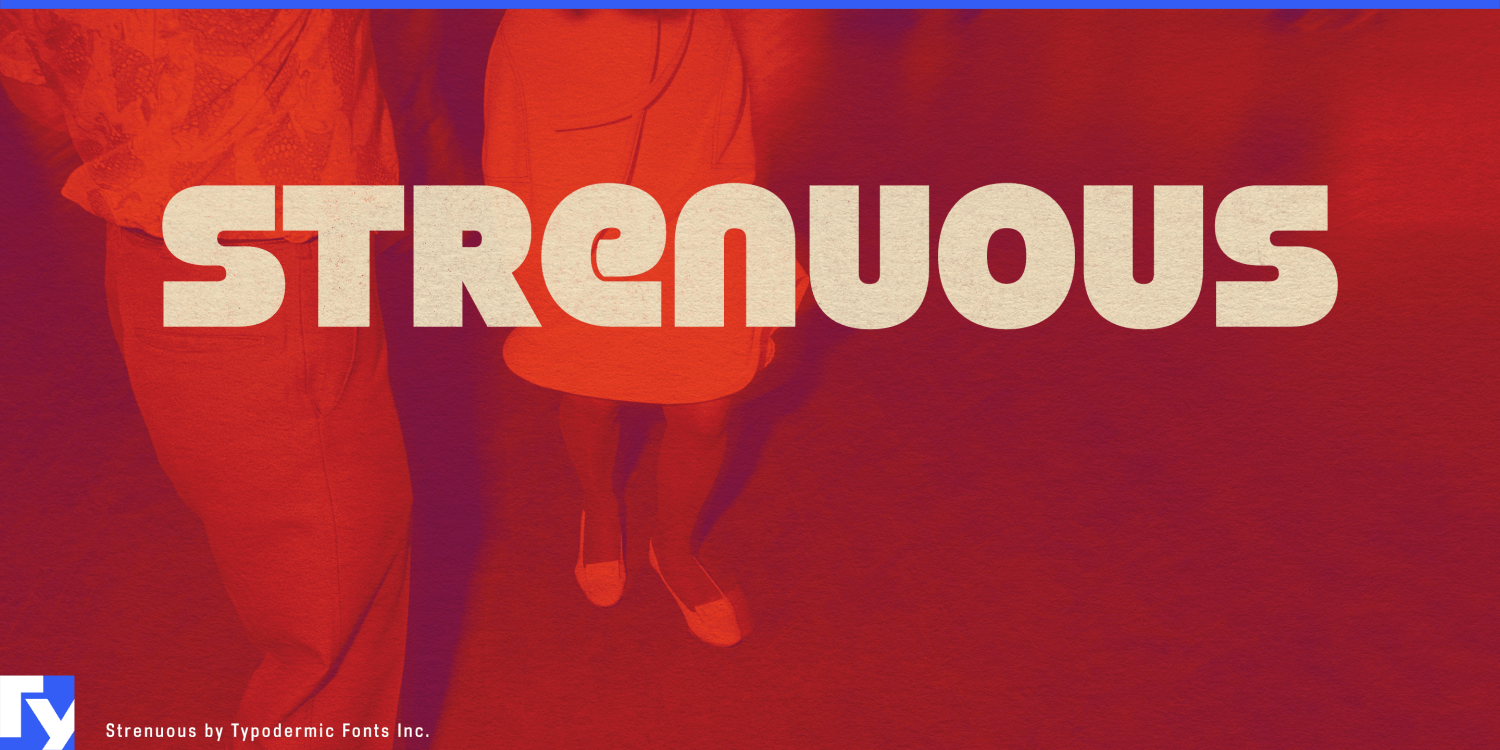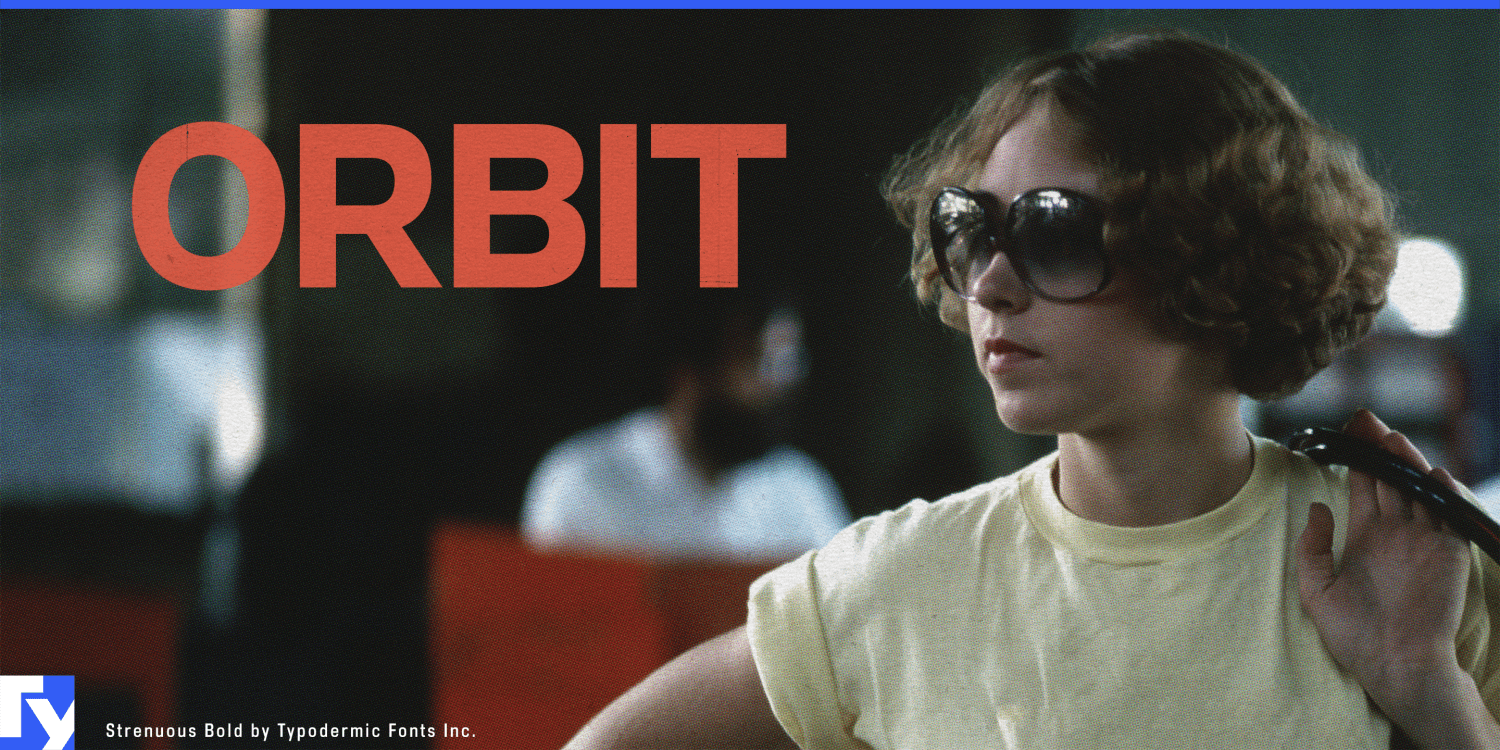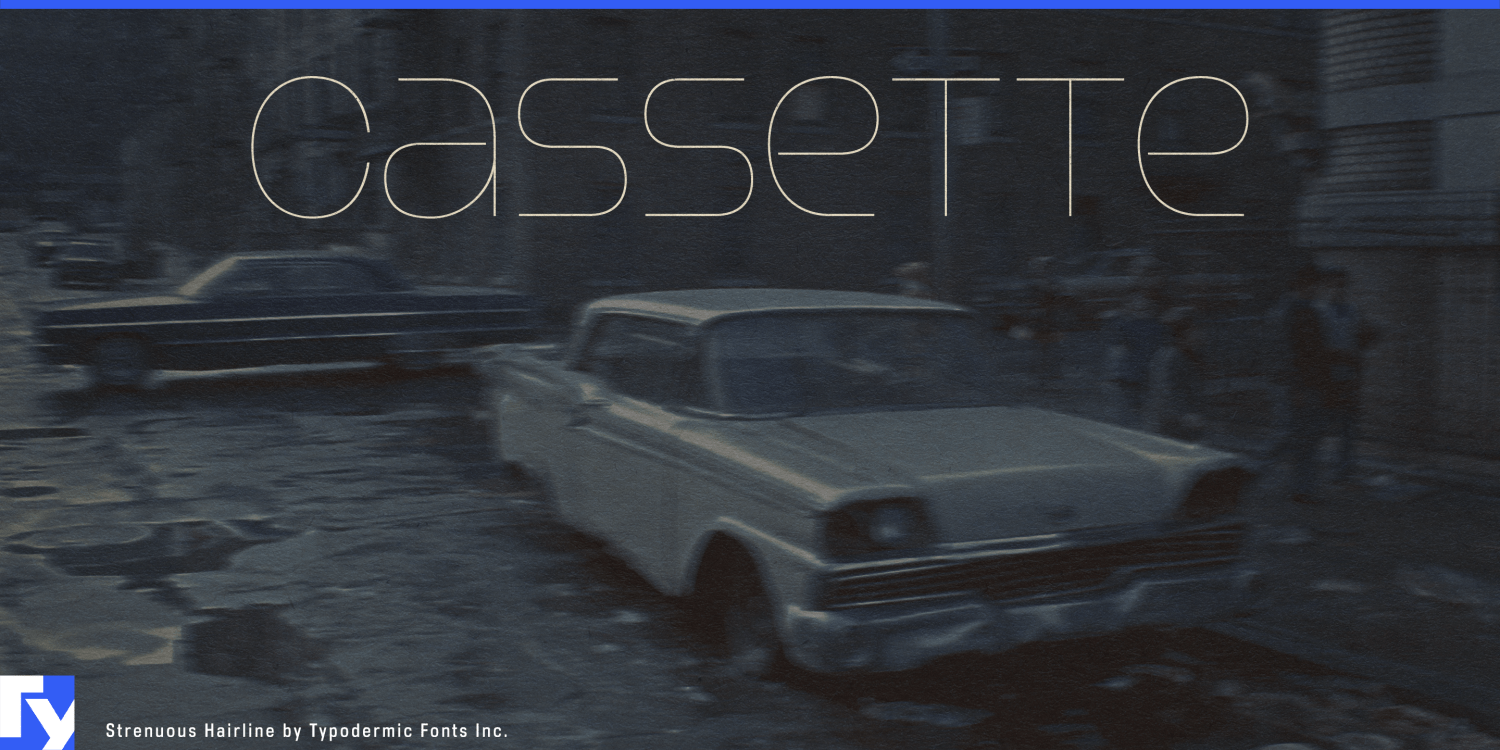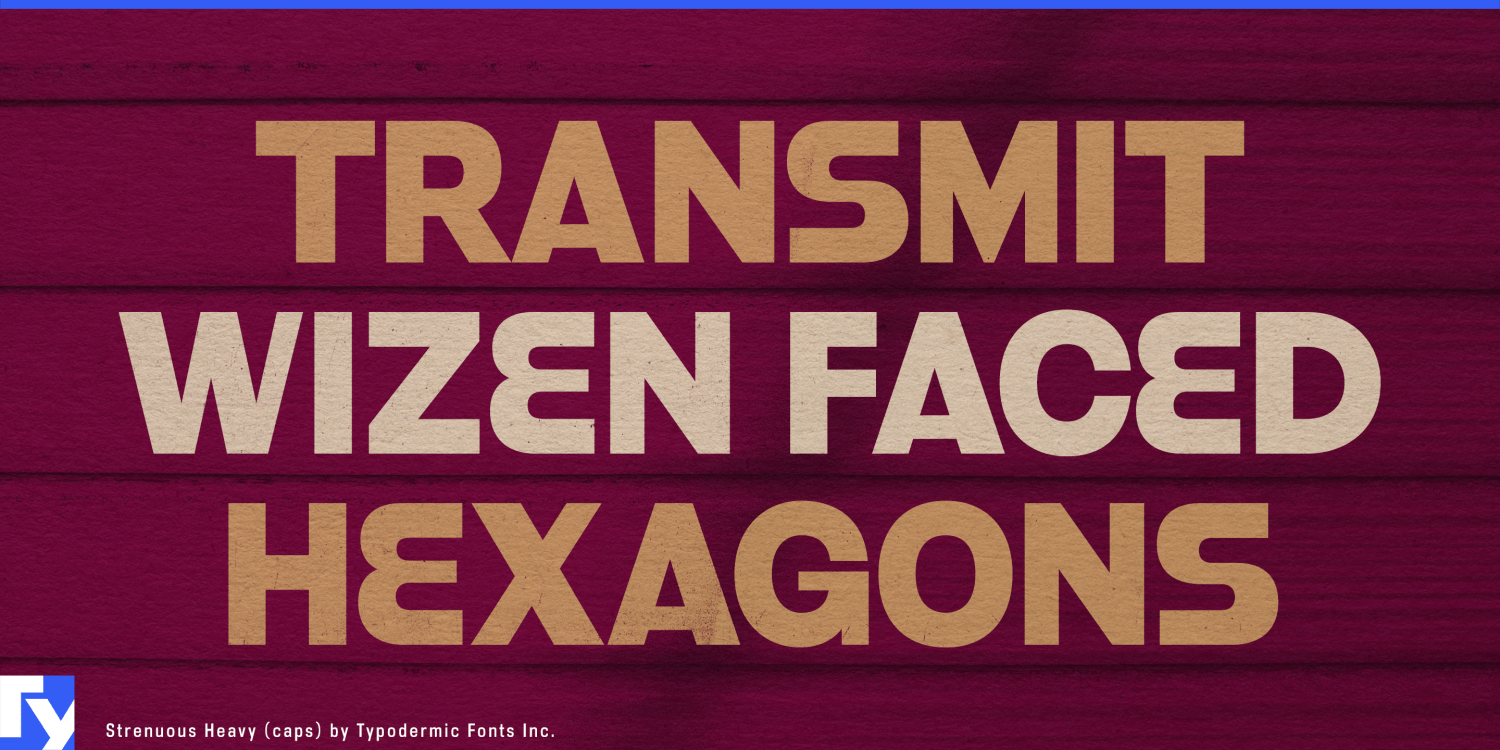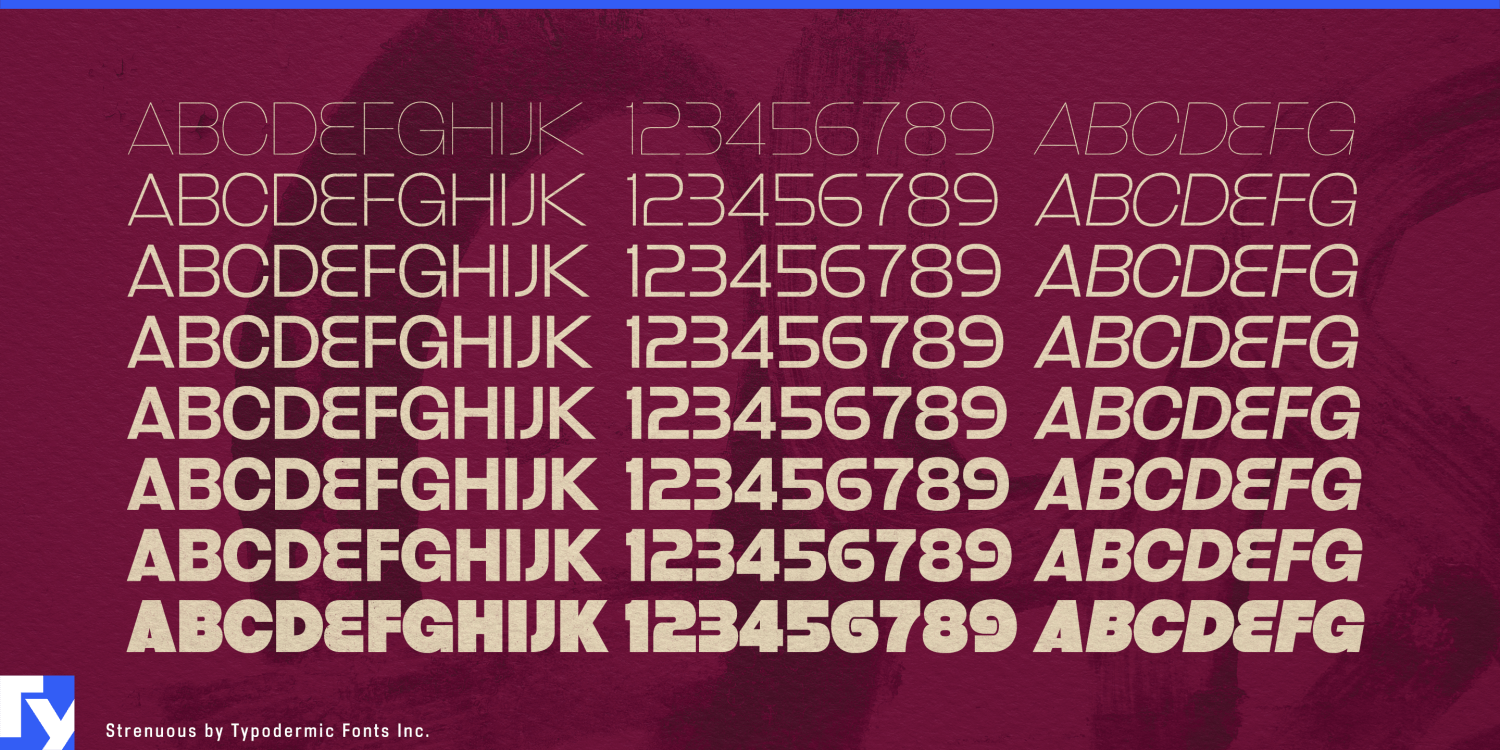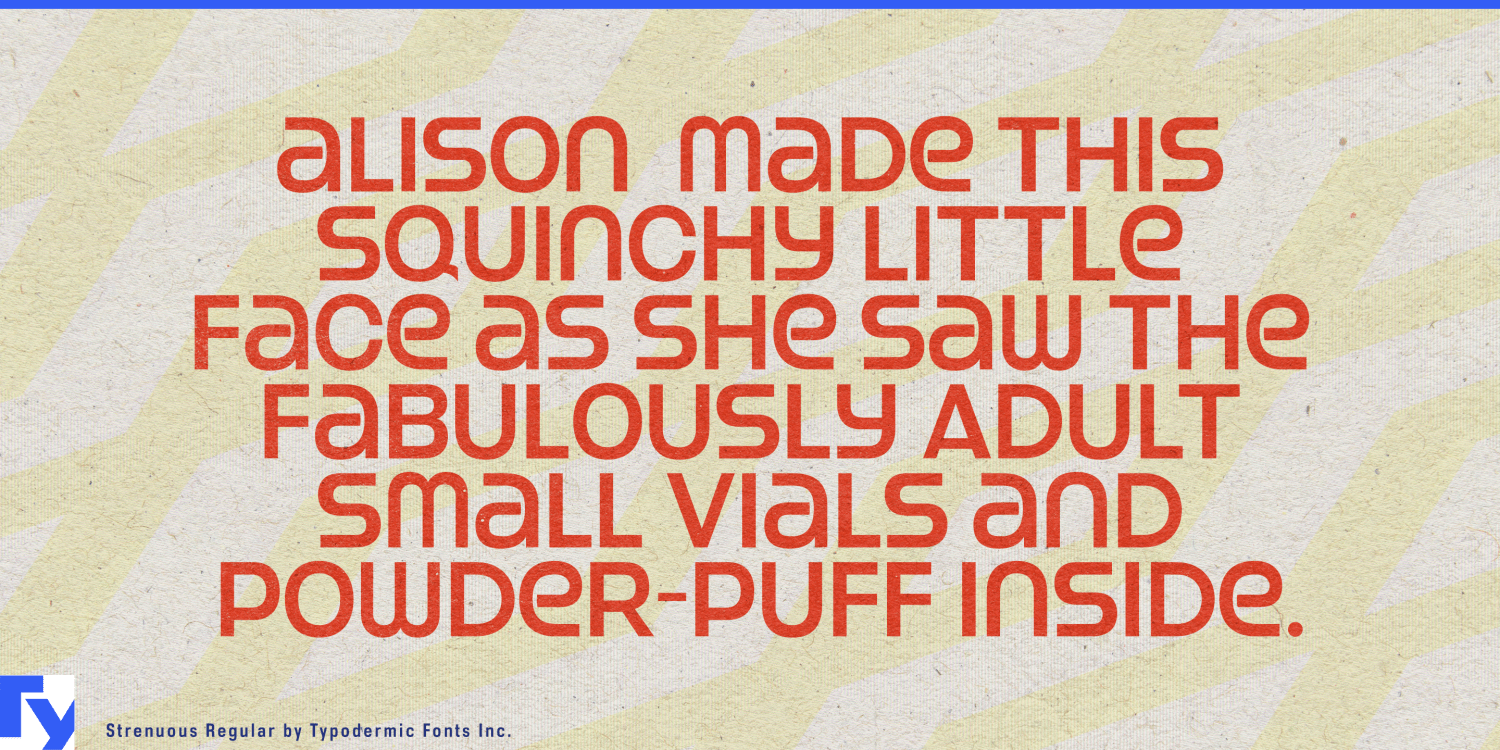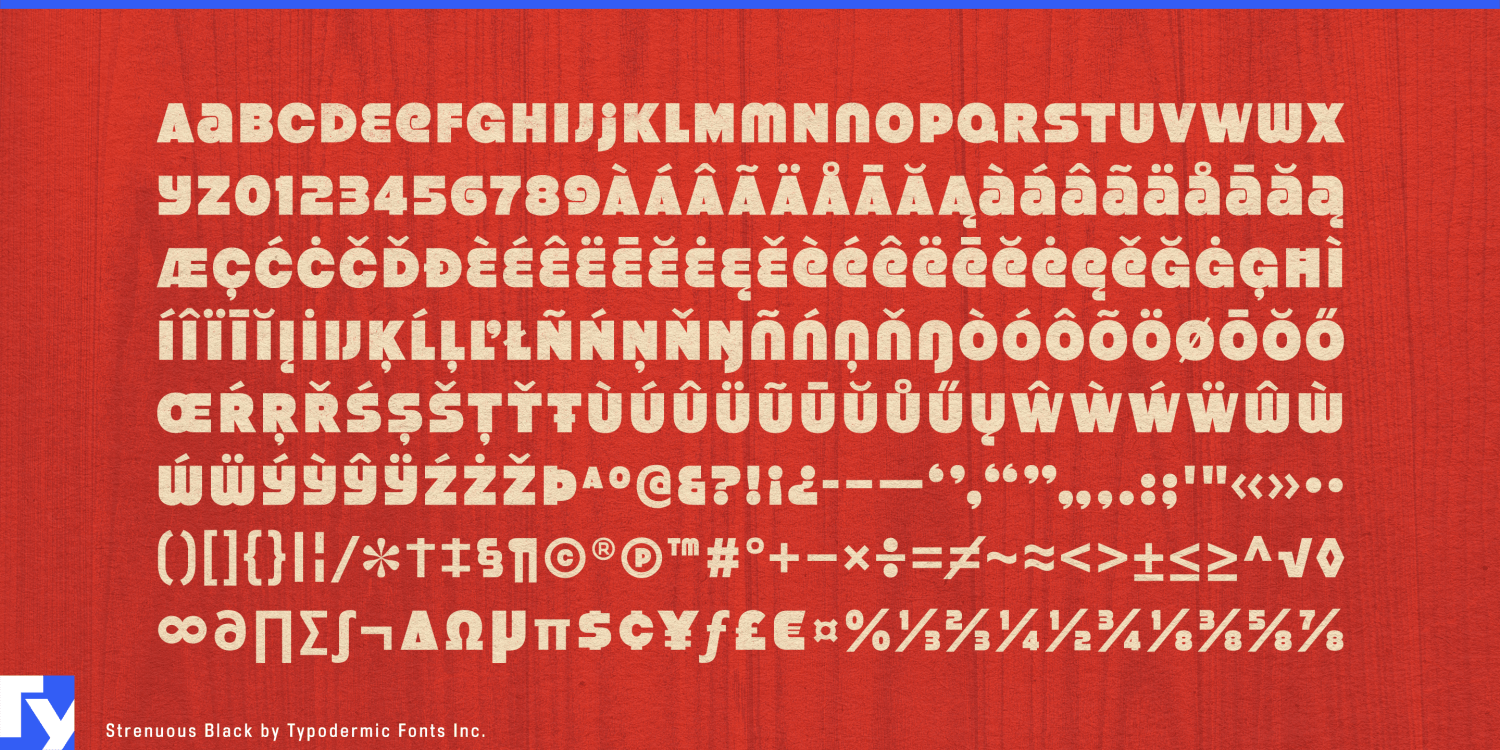
Strenuous
Font Family by Typodermic
Step into the time machine and groove your way back to the ’70s with Strenuous—a unicase headline typeface that’s about to revolutionize your design game. This is a fashion statement, a mood-setter, and a conversation starter all rolled into one funky package.
Strenuous brings the heat with its distinctive, eye-catching style that demands attention. But it’s not all flash and no substance. This versatile typeface comes equipped with alternative uppercase and lowercase versions for select letters, allowing you to fine-tune your message and keep your audience on their toes. With eight weights and matching italics at your fingertips, Strenuous is ready to tackle any design challenge you throw its way—from groovy party invitations to bold magazine spreads.
But the real magic of Strenuous lies in its ability to infuse your designs with that unmistakable ’70s vibe while still feeling fresh and contemporary. It’s the perfect choice for brands looking to add a touch of retro coolness or for projects that need to stand out in a sea of cookie-cutter typography. And here’s the kicker: Strenuous isn’t just about looking good—it’s about communicating effectively across borders. This globetrotter of a typeface supports a vast array of Latin-based European writing systems, ensuring your message resonates from Amsterdam to Zagreb and beyond.